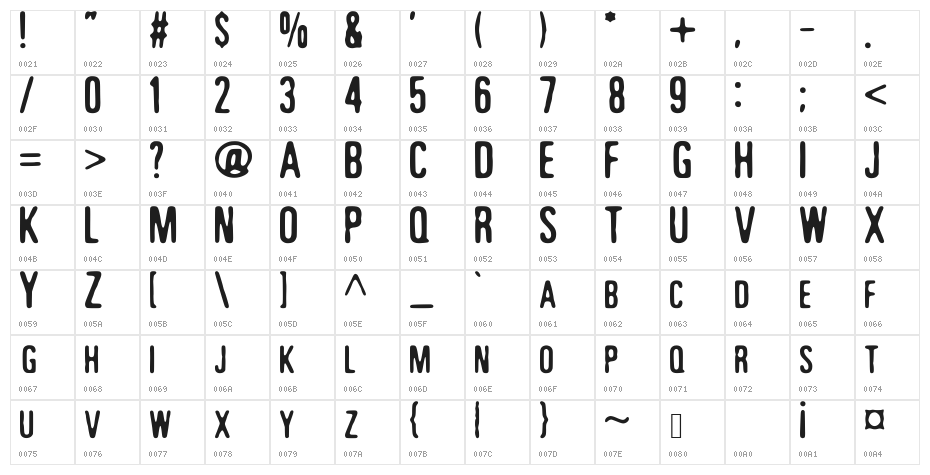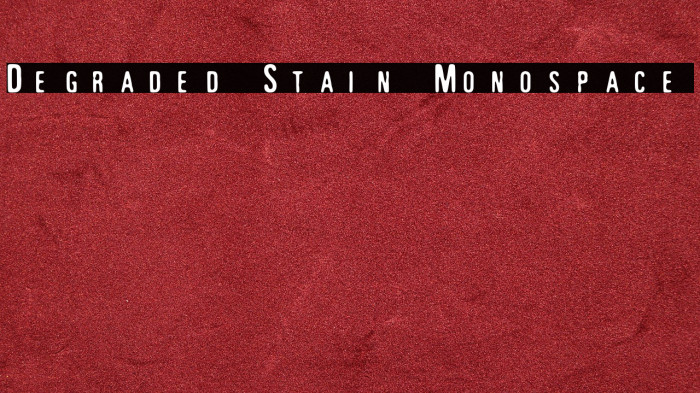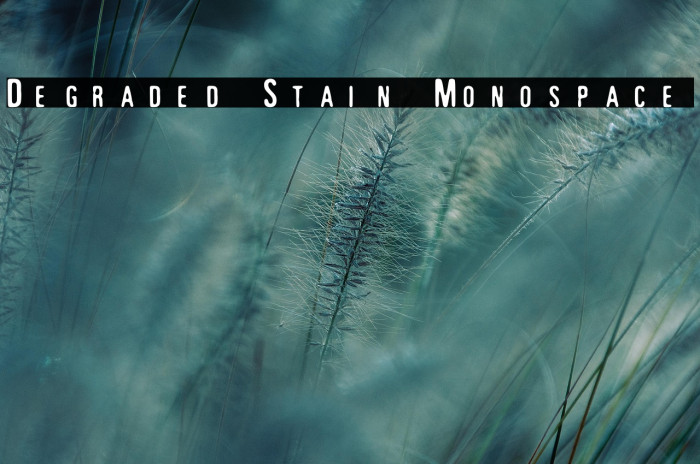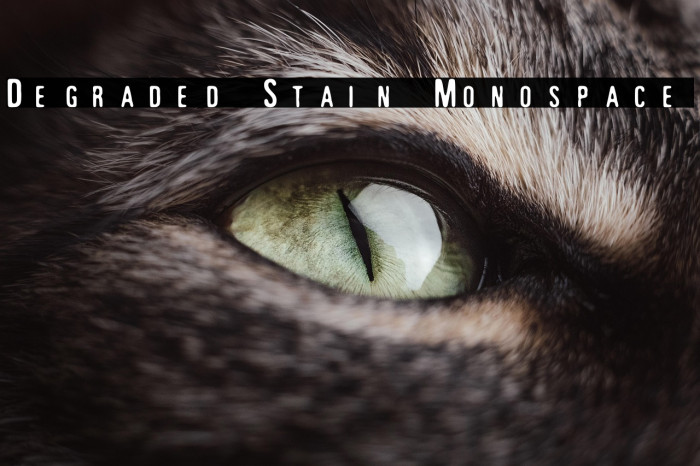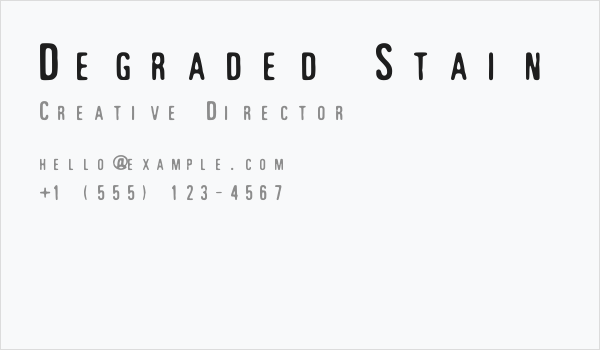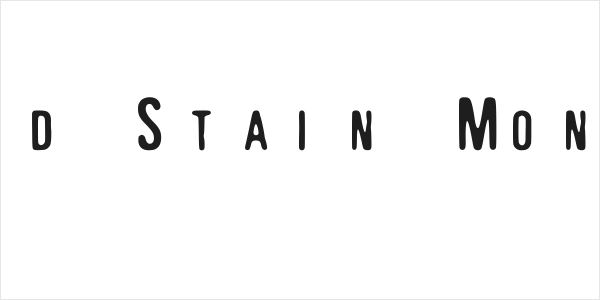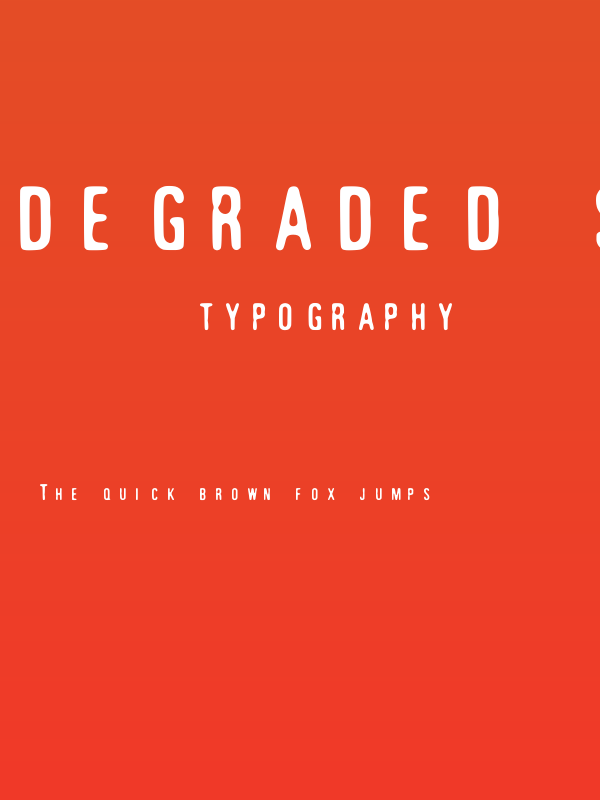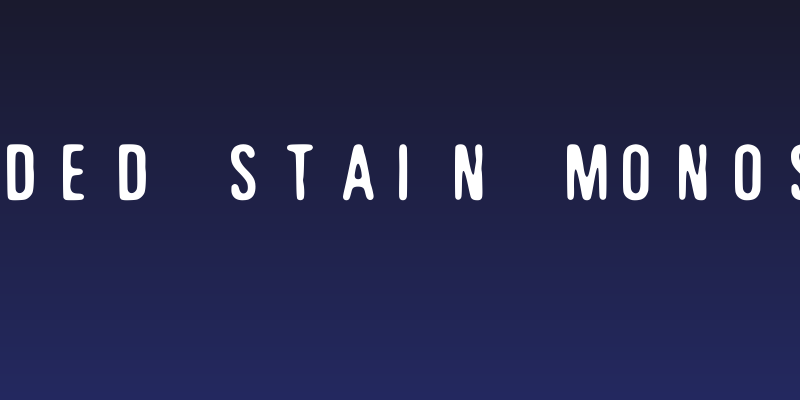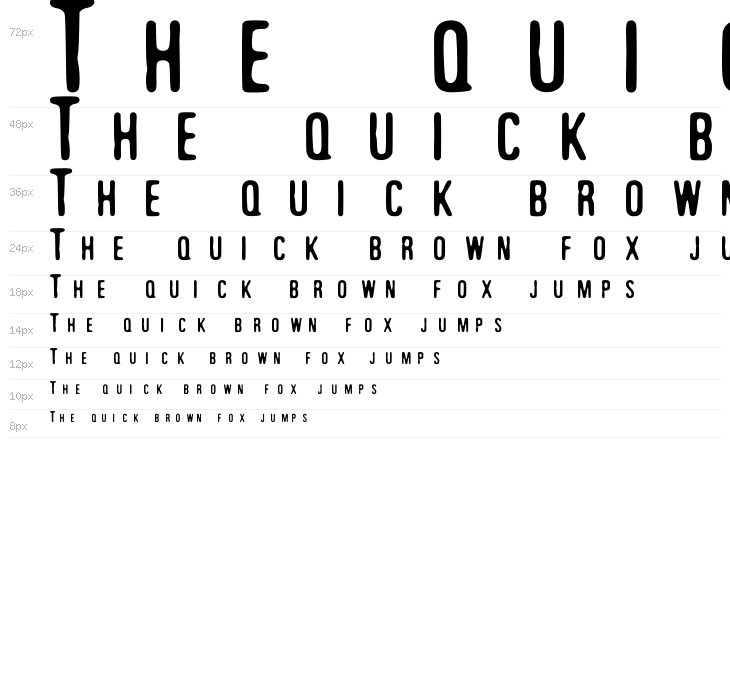
Degraded Stain Monospace Font
Degraded Stain Monospace Description
This font features a unique, distressed appearance with a monospaced structure. Each character is evenly spaced, creating a uniform look despite the irregular, stained edges that give it a weathered and vintage feel. The uppercase and lowercase letters maintain a consistent height, enhancing readability while adding a touch of character through their imperfect outlines. The numbers and special characters follow the same design principles, ensuring a cohesive look across all elements. This font is ideal for projects that require a rustic or industrial aesthetic, offering a distinctive style that stands out.